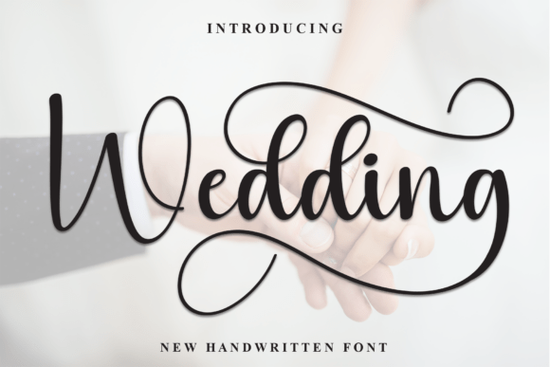
If you're designing wedding invitations, branding for a boutique event planner, or even custom merch for bridal parties, the right typeface can make all the difference. Wedding Font is a script font that blends classic calligraphy with modern simplicity offering graceful strokes and fluid curves that feel both timeless and fresh. It’s especially well-suited for designers, crafters, and small business owners who want to add a touch of sophistication without overcomplicating their layouts.
Unlike overly ornate scripts that can be hard to read or pair with other fonts, Wedding Font maintains clarity while still delivering visual elegance. Its letterforms are carefully balanced, making it versatile enough for everything from digital graphics to printed stationery. Whether you’re working on save-the-dates, social media banners, or packaging for handmade soaps labeled as “Bridal Bliss,” this font adapts smoothly across mediums.
How does Wedding Font compare to other script fonts?
There’s no shortage of script fonts out there, but not all strike the right balance between personality and practicality. For example, if you’ve used Sweet Honey, you know it leans playful and bouncy great for casual crafts but maybe too whimsical for formal events. On the other hand, Highway Heritage offers vintage Americana charm, which works beautifully for rustic weddings but might clash with minimalist aesthetics.
If you prefer something with more handwriting realism, fonts like Stylish Handwriting or Clover Fields bring organic texture and subtle imperfections that mimic real pen-on-paper. Meanwhile, Wedding Beauty shares a similar ceremonial tone but with more dramatic swashes ideal if you’re going for high drama rather than understated grace.
Wedding Font sits comfortably in the middle: polished enough for professional use, yet warm enough to feel personal.
What kinds of projects work best with this font?
Thanks to its clean lines and consistent rhythm, Wedding Font shines in contexts where readability matters just as much as style. Here are a few ideas:
- Printed stationery: Invitations, menus, place cards, and thank-you notes all benefit from its refined flow.
- Digital designs: Instagram story templates, Pinterest pins, or email headers for wedding vendors look elevated without being cluttered.
- Product branding: Think custom candles, bath salts, or tote bags marketed toward brides-to-be or wedding guests.
- Logos: Especially for florists, photographers, or planners who want to signal elegance without appearing stiff.
One tip: avoid using it in all caps or at very small sizes. Script fonts like this rely on their connecting strokes and open counters, so legibility drops quickly when scaled down or forced into uppercase.
How to pair Wedding Font with other typefaces
Because Wedding Font has strong personality, it pairs best with neutral, simple companions. A clean sans-serif like Montserrat, Lato, or Helvetica keeps the focus on the script while providing contrast. For print projects, consider a light serif like Playfair Display (used sparingly) to maintain a formal tone without competing visually.
Avoid pairing it with another script unless you’re experienced with typography hierarchy. Mixing two flowing fonts often leads to visual noise, especially in busy layouts like invitation suites.
Quick checklist before using Wedding Font in your next project:
- Test readability at your final output size especially for printed text under 10pt.
- Pair it with a simple, non-script font for body text or supporting info.
- Use generous line spacing to let those elegant curves breathe.
- Preview your design in grayscale to ensure contrast and clarity aren’t lost.
Whether you’re crafting a one-of-a-kind invitation or building a brand around love and celebration, Wedding Font offers a reliable blend of beauty and function without demanding advanced design skills to use well.